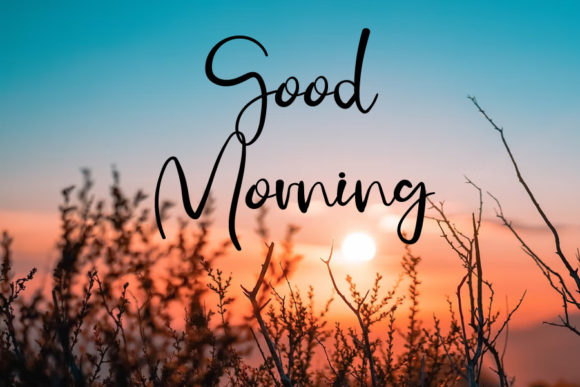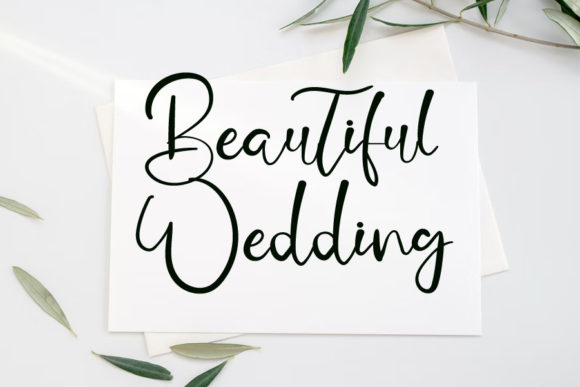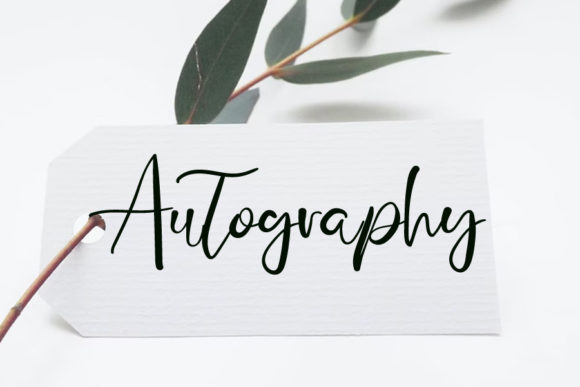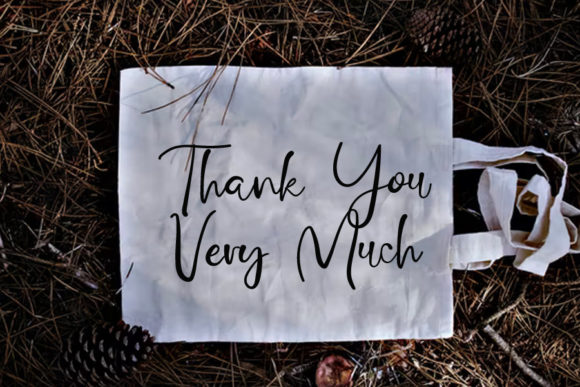
Dillan Font: Elevate Your Designs with Elegance and Sophistication
In the world of typography, fonts play a crucial role in conveying the tone and aesthetic of a design. For designers and crafters seeking to add a touch of elegance and sophistication to their creations, the Dillan font is an excellent choice. This distinct and graceful script font is sure to captivate audiences with its ravishing style, making it perfect for a wide range of design projects.
What Makes Dillan Font Stand Out?
The Dillan font boasts a unique and refined design that sets it apart from other script fonts. Its elegant strokes, beautiful swashes, and flowing lines create a sense of luxury and refinement, making it ideal for designs that require a high level of sophistication. Whether you’re working on a branding project, packaging design, or digital artwork, Dillan font is sure to elevate your design to the next level.
One of the standout features of the Dillan font is its PUA (Private Use Area) encoding. This means that users can access all glyphs and swashes with ease, allowing for greater flexibility and creativity in design. With PUA encoding, you can effortlessly navigate through the font’s extensive character set, including alternates, ligatures, and ornaments, to create stunning and unique designs.
The Dillan font’s versatility makes it suitable for a wide range of design projects, including:
• Branding and Logo Design: Create a lasting impression with Dillan font’s elegant and sophisticated style, perfect for luxury brands, beauty products, and high-end services.
• Wedding and Event Design: Add a touch of romance and whimsy to your wedding invitations, stationery, and event materials with Dillan font’s beautiful swashes and flourishes.
• Packaging Design: Elevate your product packaging with Dillan font’s refined and luxurious style, perfect for high-end products, cosmetics, and gourmet foods.
• Digital Artwork: Use Dillan font to create stunning digital artwork, including social media graphics, blog headers, and website designs that exude elegance and sophistication.
Tips for Using Dillan Font Effectively
To get the most out of Dillan font, here are some tips for using it effectively:
• Pair with contrasting fonts: Combine Dillan font with a clean, sans-serif font to create visual interest and contrast.
• Experiment with swashes: Take advantage of Dillan font’s beautiful swashes and flourishes to add a touch of elegance to your design.
• Use for headlines and titles: Dillan font is perfect for headlines and titles, where its elegant style can make a lasting impression.
In conclusion, the Dillan font is a stunning script font that offers a unique blend of elegance, sophistication, and versatility. With its PUA encoding, beautiful swashes, and refined design, Dillan font is perfect for designers and crafters seeking to create gorgeous designs that stand out from the crowd. Whether you’re working on a branding project, packaging design, or digital artwork, Dillan font is sure to elevate your design to new heights.